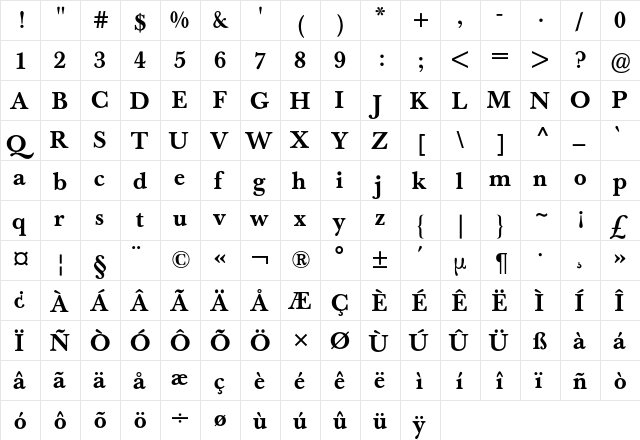
Baskerville Book BQ Regular Font Preview
Baskerville Book BQ Regular
Baskerville Book BQ Regular Font Details
Design Context for Baskerville Book BQ Typeface
Baskerville Book BQ is a composed and adaptable typeface that performs quietly and consistently across a wide range of design contexts.